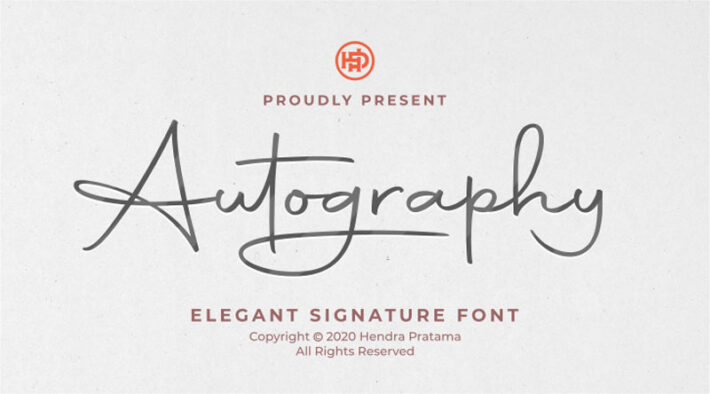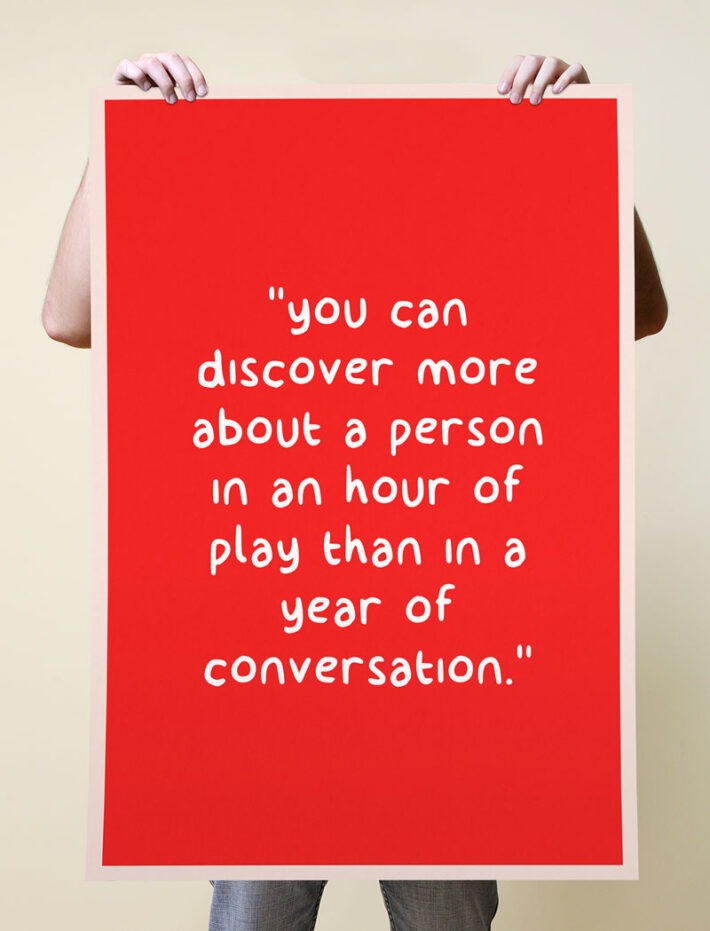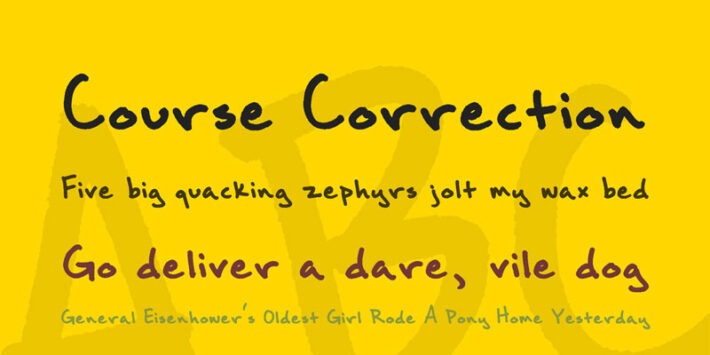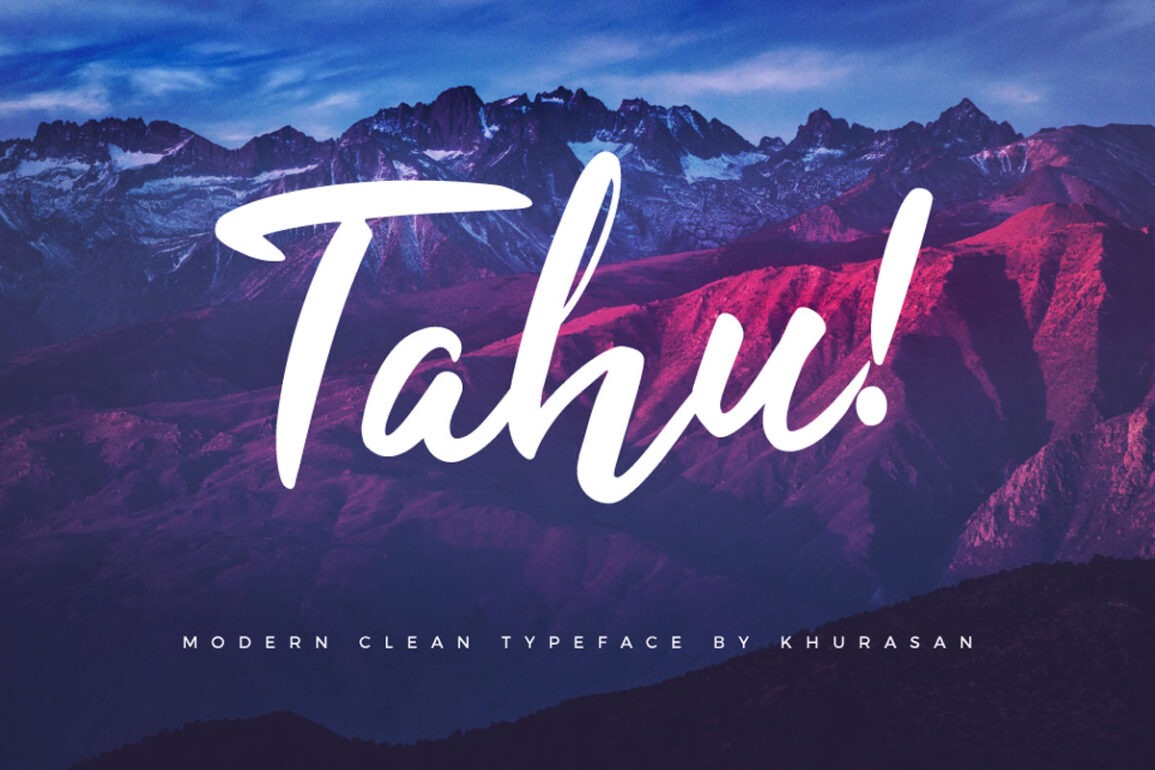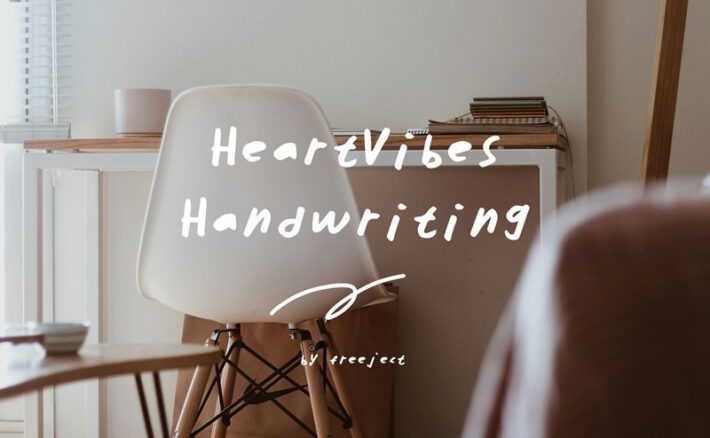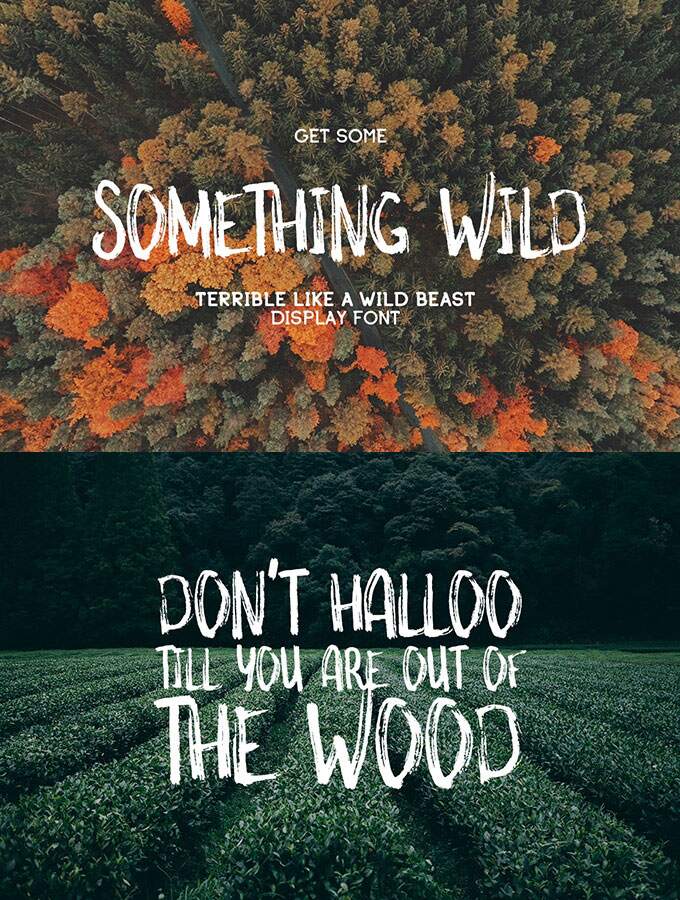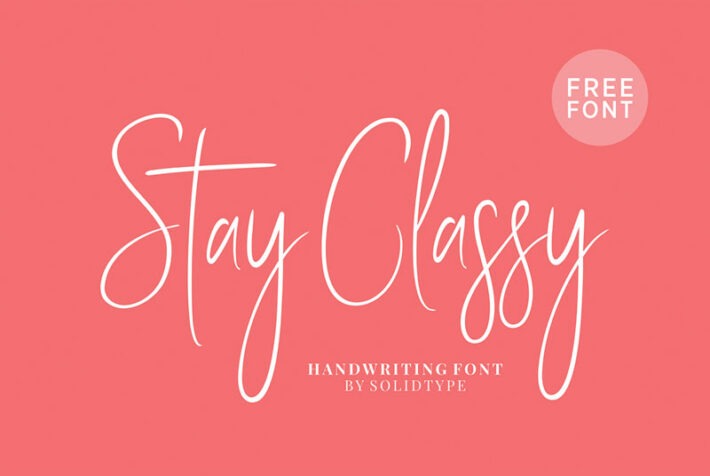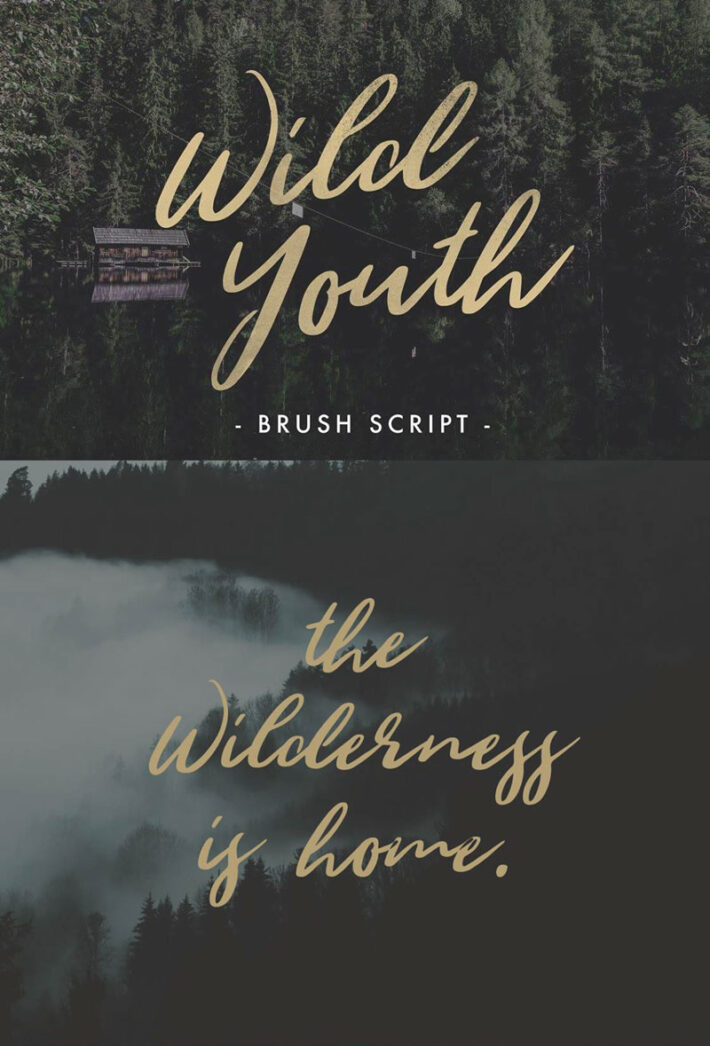
As technology improves, fonts have become more advanced. Many fonts can appear like handwriting. You can find these in different ways, such as on the keyboard or in the settings of your phone or computer. There are free websites that provide hand-written font downloads; however, some fonts come with a fee.
Under the penmanship that looks more like handwriting, different fonts look like handwriting. There are two main types of these variations: cursive and print. Cursive fonts imitate the way people write by hand with curves intertwined to create letters. Print fonts, however, look more like block letters. Some people find cursive easier to read than print because it is more fluid and continuous. Other people find cursive harder to read because it is not as consistent as print.
New research shows that handwriting fonts are an important factor in our work productivity. The study, conducted by Stanford University, found that participants who wrote their answers exclusively in cursive were able to recall more information than those who used print or mixed formats of cursive and print. Researchers believe that the act of forming letters by hand triggers a connection between meaning and memory.
Font Which Looks Like Handwriting:
Shopping Script
Something Wild
Stay Classy
Mightype
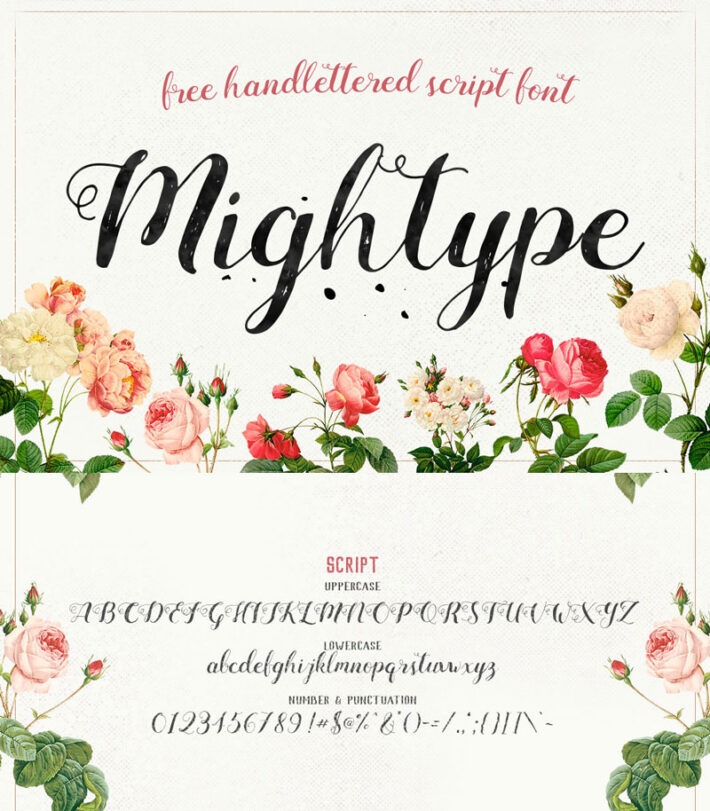
Brown Bag Lunch
Autography
Wild Youth
HeartVibes Handwriting Font
Billy Free Typeface Font
TAHU FREE SCRIPT FONT